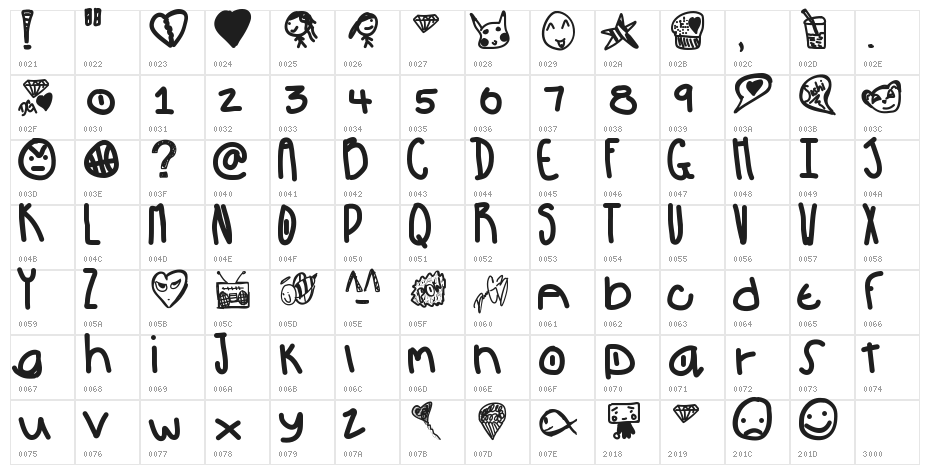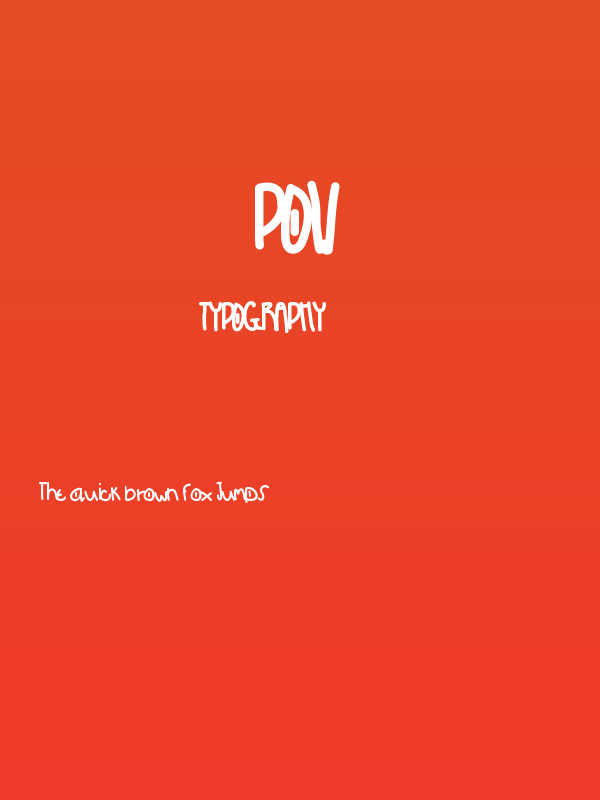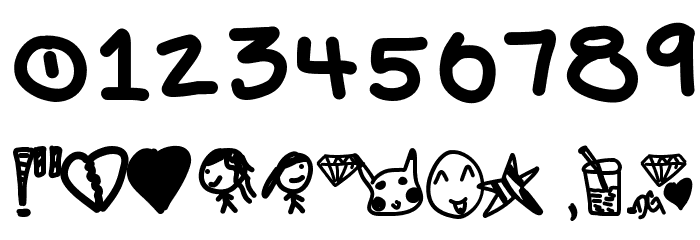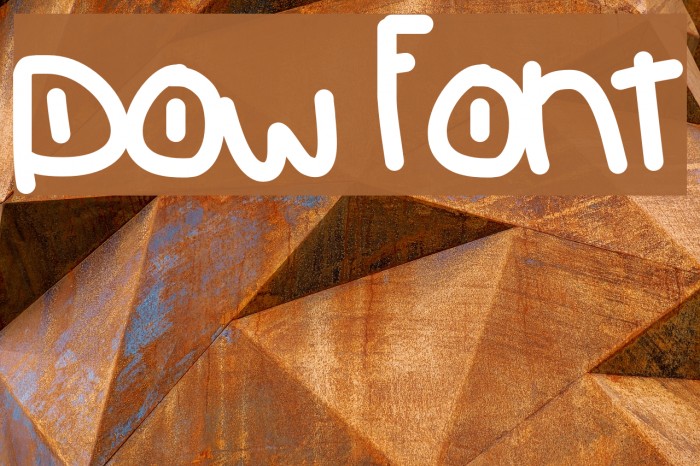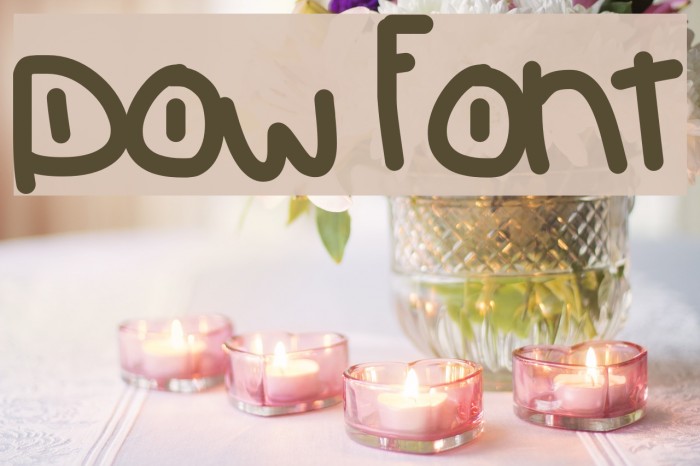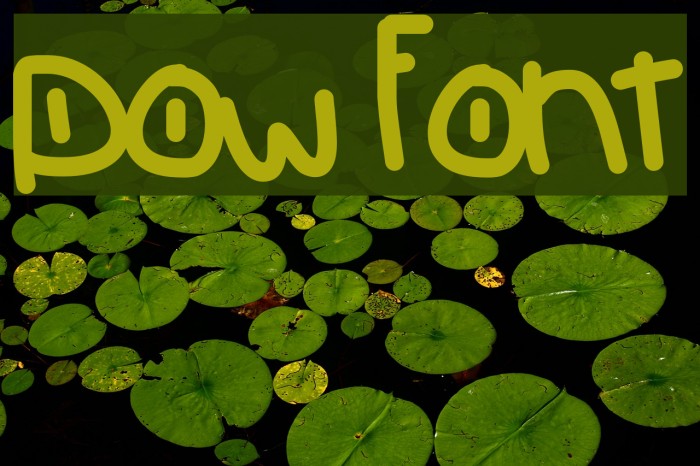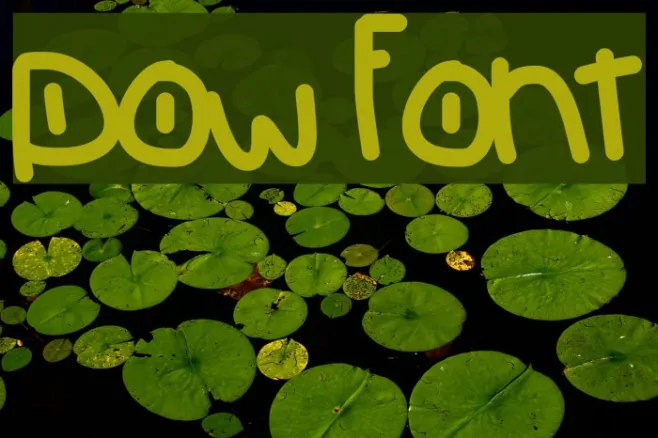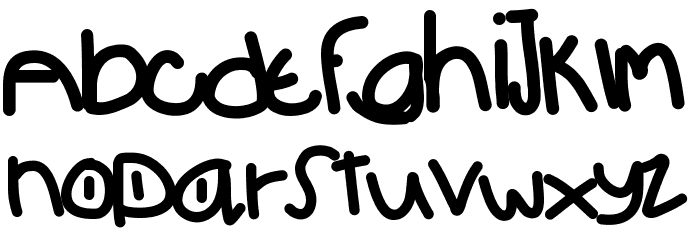
pow Font
pow Description
This playful and whimsical font features bold, rounded characters with a hand-drawn aesthetic. The uppercase letters are tall and narrow, while the lowercase letters maintain a consistent, casual flow. The numbers are similarly rounded, adding to the font's approachable feel. Special characters include a mix of playful symbols, enhancing the font's fun and informal style. The overall design is reminiscent of doodles or children's handwriting, making it perfect for projects that require a lighthearted and creative touch.
POW UPPERCASE
POW LOWERCASE
POW OTHER CHARS
| Use Case | Logos, Posters, Greeting Cards |